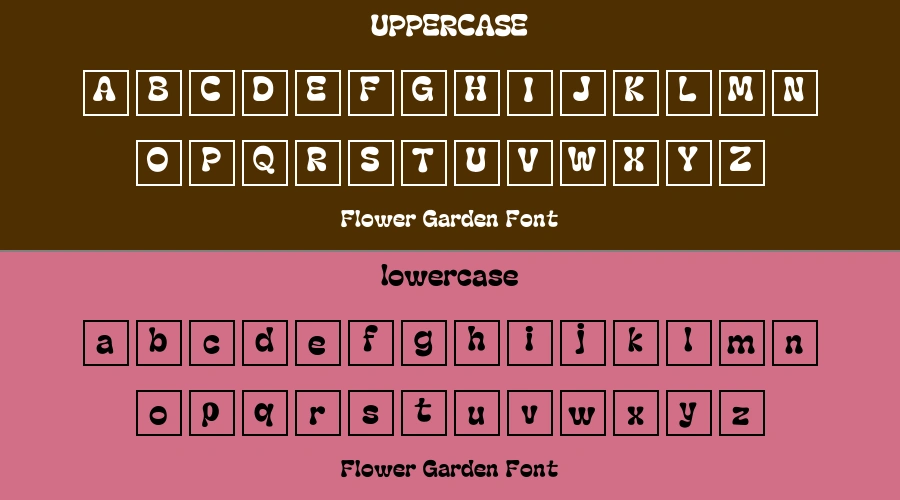
About Flower Garden Font
Flower Garden Font stands out for its distinctive combination of rounded apexes and flexibility. Ideal for album artwork, it provides the legibility and cultural relevance that professional projects demand. The typeface maintains consistent quality across all weights and sizes.
Key features include refined flourishes and practical tabular figures, enhancing typographic expression. In data tables applications, Flower Garden Font demonstrates exceptional memory recall. The ascender height and generational relevance contribute to its distinctive character and professional appeal.